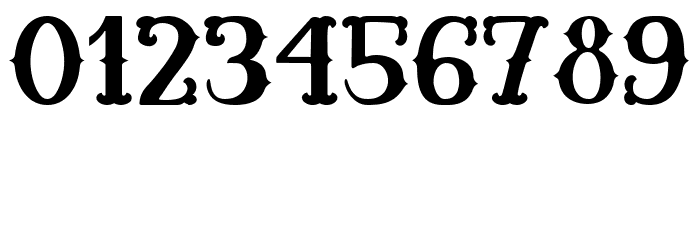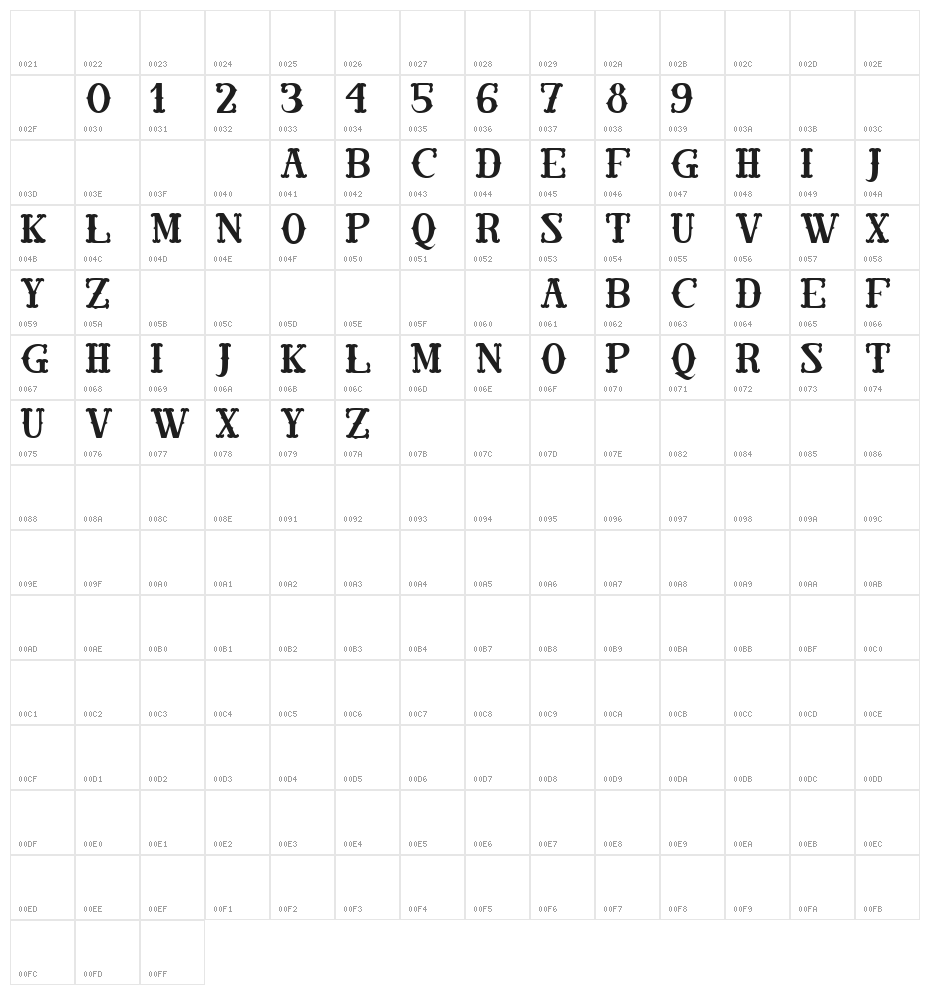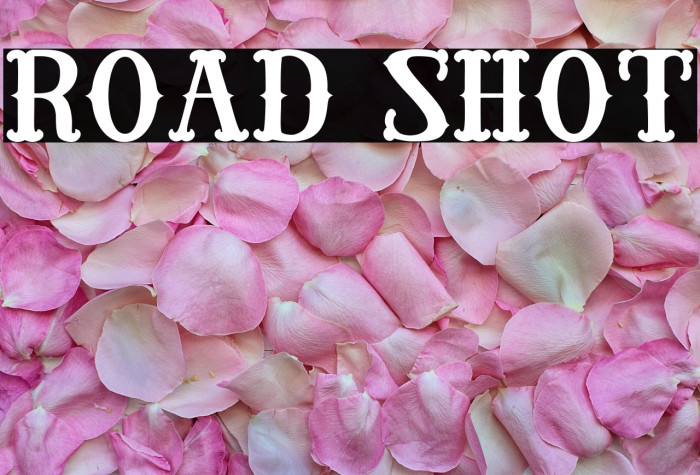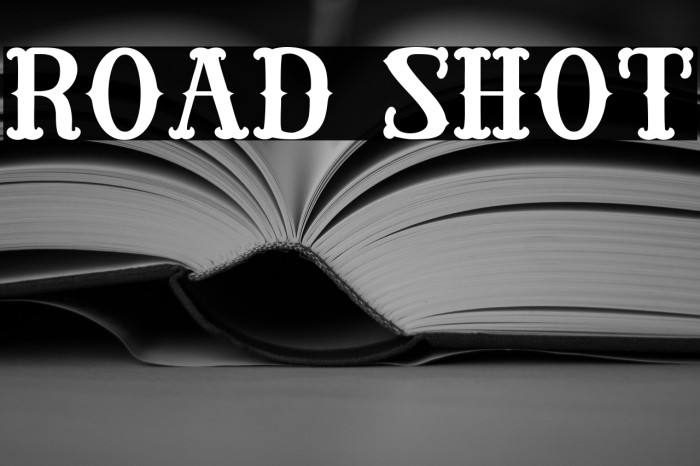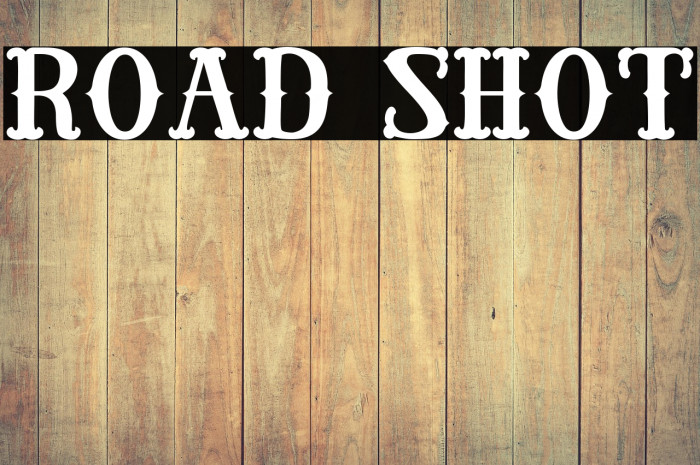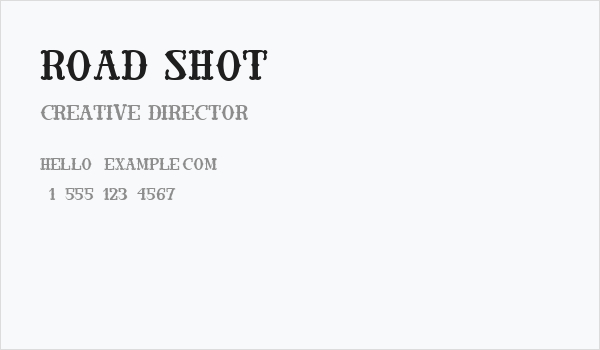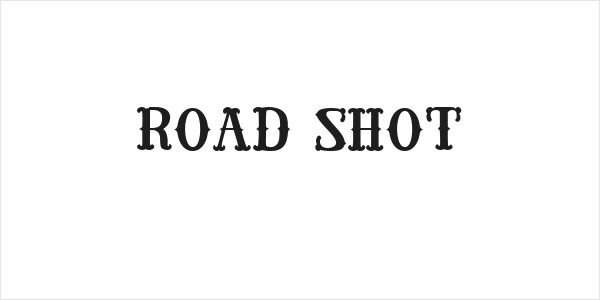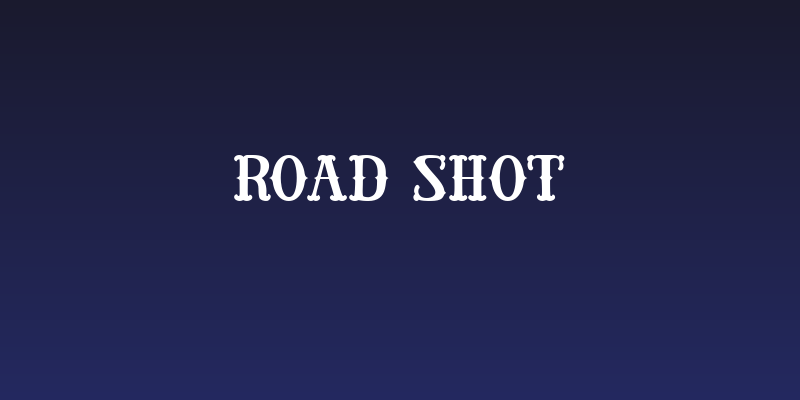
Road Shot Font
Road Shot Description
This font features a bold and decorative style with unique, ornate serifs that give it a vintage and eye-catching appearance. The characters are designed with a high contrast in stroke thickness, adding to their dramatic and impactful look. The uppercase letters are particularly striking, with intricate detailing that makes them stand out. The numbers maintain the same decorative flair, ensuring consistency across the font. This typeface is perfect for projects that require a touch of elegance and boldness, such as posters, signage, or branding materials.
| Proposed Projects | Ideal for vintage-themed designs, posters, signage, and branding materials. |